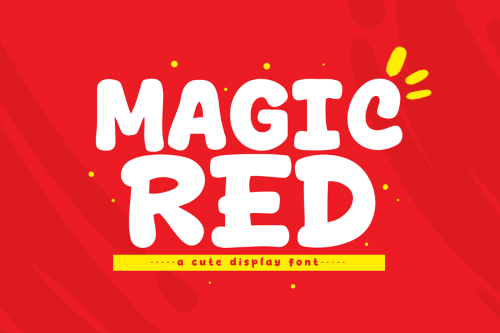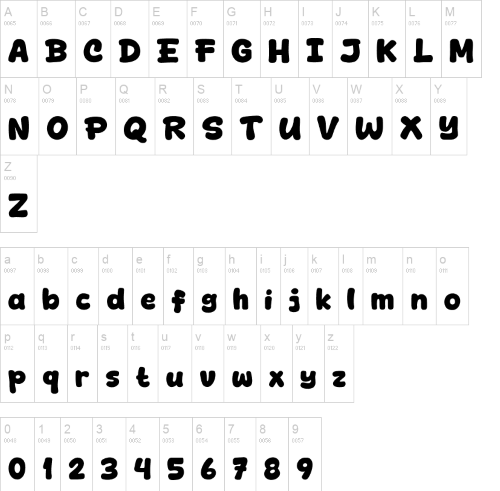
Magic Red Font
Magic Red Font is a bold, decorative display typeface with a playful yet powerful character. Its strong strokes and dynamic shapes make it ideal for posters, headlines, logos, and eye-catching branding. Magic Red brings energy, creativity, and a sense of fun, helping designs stand out with confidence and flair.